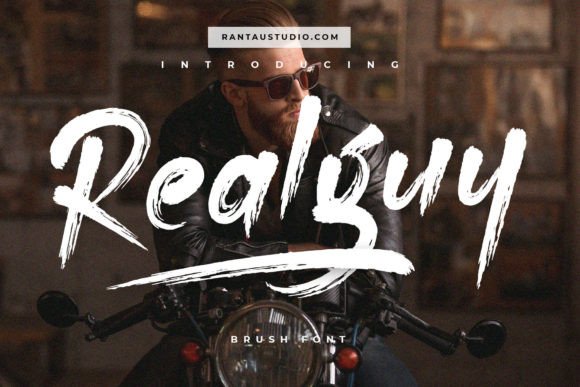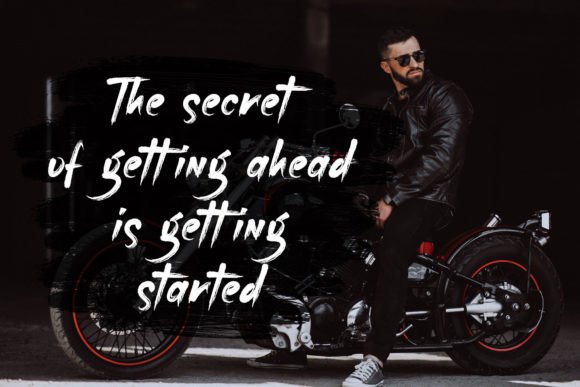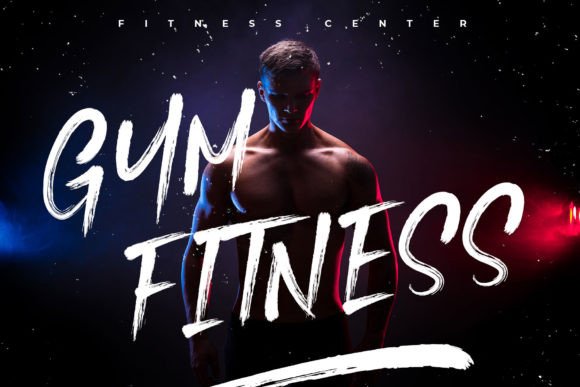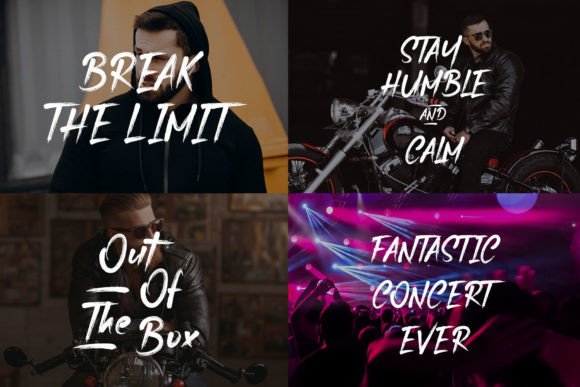
Realguy Font
About the Realguy Font
Crafted with precision, the Realguy Font is ready to bring your ideas to life. Experience the authenticity of this font with its genuine hand brush imperfections. Paired perfectly with a complementary marker font and a convenient bonus set of swashes.
Realguy’s bold, hand-brushed texture makes it ideal for headlines, short impactful statements, and branding elements where a touch of rustic authenticity is desired. It works exceptionally well on posters, packaging for artisanal products, and logos requiring a strong, handcrafted feel. Avoid using it for body text or long paragraphs; its irregularity hinders readability in extended use.
Consider pairing Realguy with a clean sans-serif like Open Sans for a balanced contrast, or a geometric sans-serif such as Roboto for a more modern feel. A simple serif like Merriweather can also provide a sophisticated counterpoint, softening the hand-drawn roughness.
Its core personality is rugged yet friendly, conveying both strength and approachability. Brands focused on craftsmanship, natural products, or a vintage aesthetic will find Realguy particularly effective.